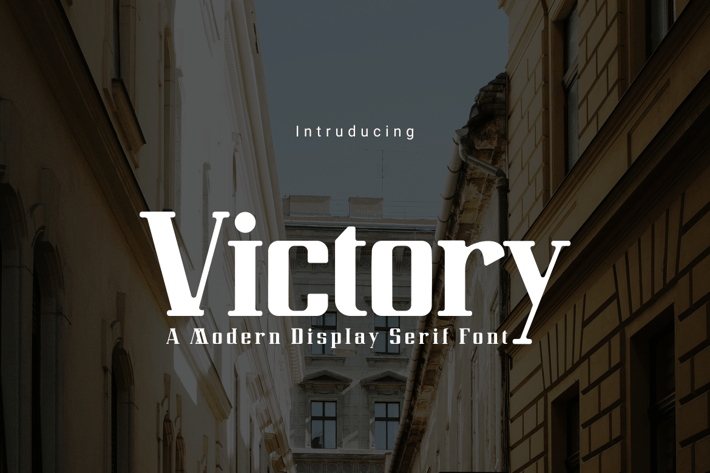
Victory - A Modern Display Serif Font
Proudly present our new product Victory - A Modern Display Serif Font
is a modern and authentic font. Perfect for professional needs and product branding, this font is suitable for any branding project such as quotes, logos, blog headers, posters, ribbons, letters, invitations, stationery, etc... Designed to be versatile and flexible that can be used on a variety of projects and media. extraordinary in a variety of contexts.